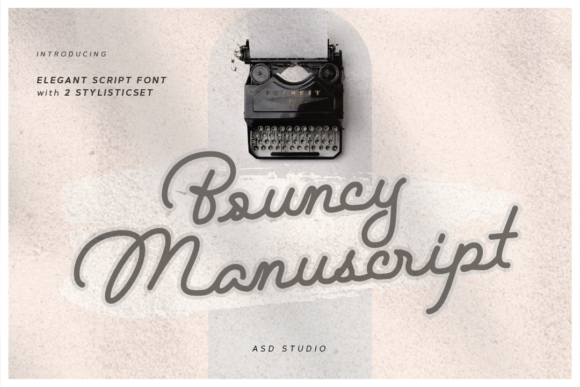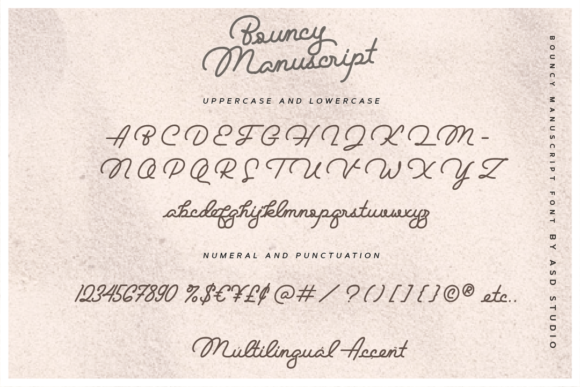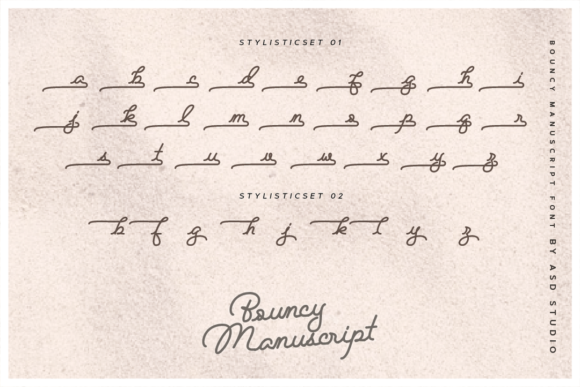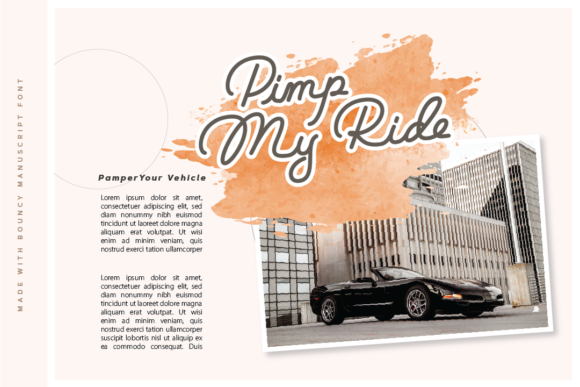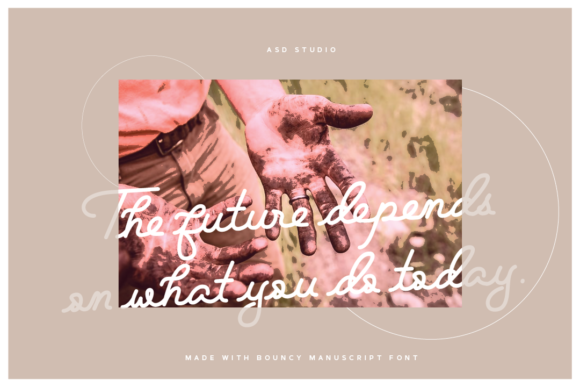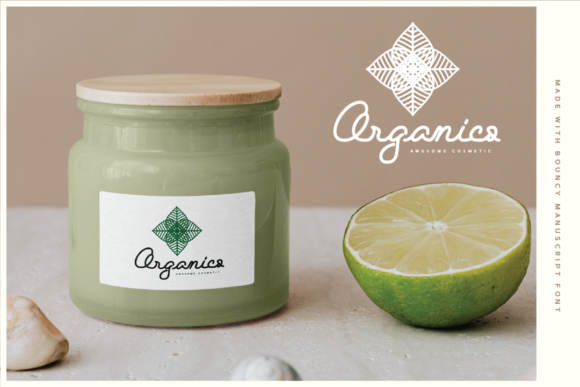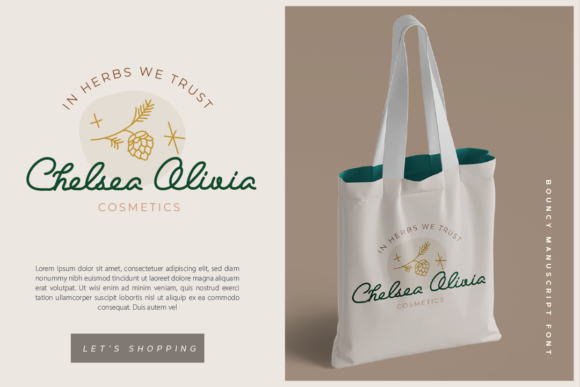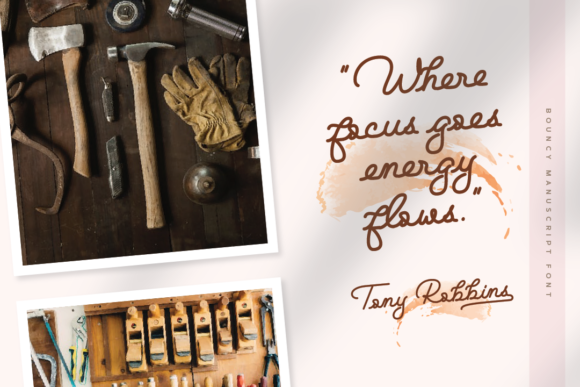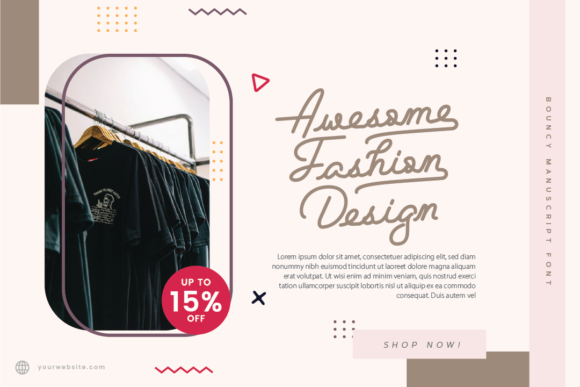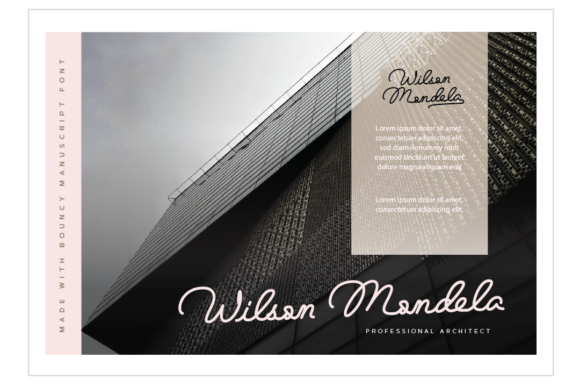
Bouncy Manuscript Font
About Bouncy Manuscript Font
Bouncy Manuscript is an elegant and flowing script font, featuring a vintage style. It will add a luxury spark to any design project that you wish to create! This font is PUA encoded which means you can access all of the amazing glyphs and ligatures with ease!